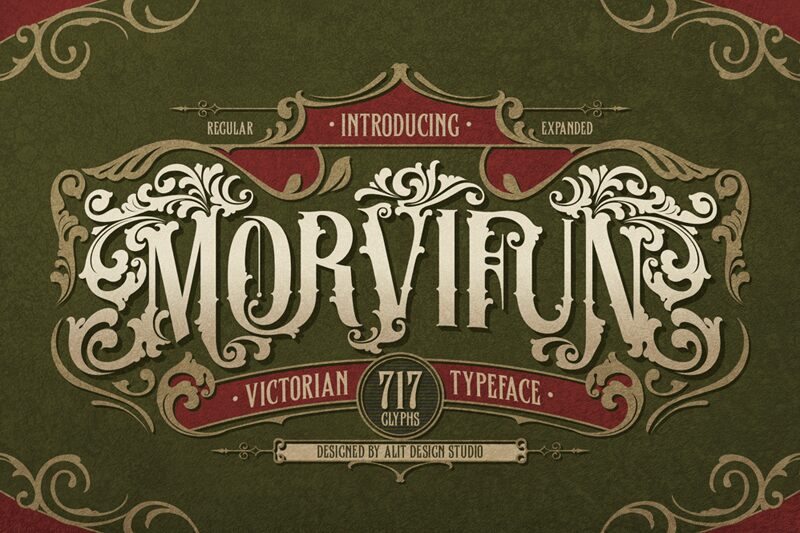
Morvifun Expanded Expanded
Introducing "Morvifun" - a captivating font that combines the elegance of Victorian aesthetics with ornamental details. This classic serif typeface showcases the timeless charm of Gothic styles, resulting in a visually stunning and versatile product.
With a total of 717 meticulously crafted glyphs, Morvifun offers an extensive character set that enables you to express your creativity and bring your designs to life. From uppercase and lowercase letters to numerals, punctuation marks, and special symbols, this font provides a comprehensive range of options to suit your design needs.